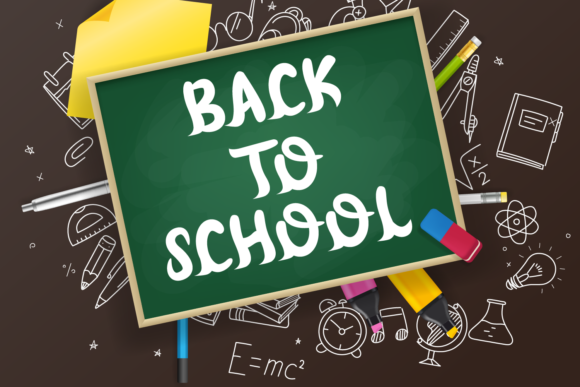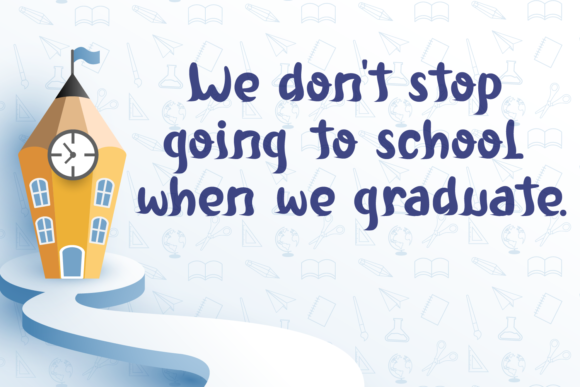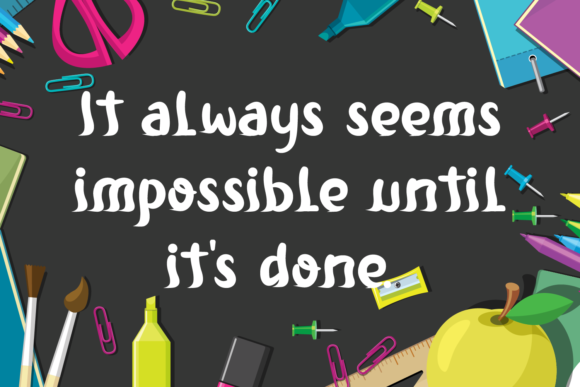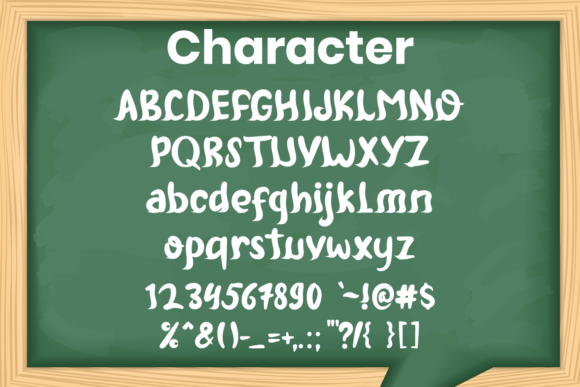
Unlocking the Fun in Design with Jack Homework Font
You know that moment when you’re working on a project and suddenly a spark of creativity hits you? Maybe it’s a quirky character design, a playful quote, or a whimsical title that brings a smile to your face. Whatever it is, it’s that instant when your design comes alive and you can’t wait to share it with the world.
For designers looking to add a touch of whimsy and fun to their creations, there’s a font that’s sure to become a trusted companion – the Jack Homework Font. This delightful display font is perfect for cartoon-related designs, children’s games, quotes, titles, brand names, book covers, posters, and more. Its playful and jolly vibe makes it an invaluable asset for designers seeking to inject a bit of magic into their work.
Jack Homework Font Key Features
- Unique Characteristics: Jack Homework Font features a distinctive, hand-drawn style with subtle imperfections, giving it a personal and approachable feel.
- Scalability: The font is designed to be highly scalable, allowing it to be used effectively in both large and small text sizes, from headings to body text.
Designer Review: Jack Homework Font
I recently had the chance to work with the Jack Homework Font, and I have to say it’s a decent addition to any designer’s toolkit. Here’s my honest review:
- Unique aesthetic: The font has a distinct, handwritten feel that can add a personal touch to any project.
- Readability: Despite its quirky appearance, the font is surprisingly easy to read, even at smaller sizes.
- Craftsmanship: The font’s irregularities and imperfections give it a sense of character that’s hard to replicate with more generic fonts.
- Limited range: The font’s style is quite narrow, which can make it feel restrictive in certain applications.
- Not ideal for body text: While the font works well for headlines and titles, it may not be the best choice for large blocks of body text.
- May require adjustments: Depending on the project, you may need to make some adjustments to the font’s size, spacing, or color to get the desired effect.
The Jack Homework Font is a solid choice for designers looking to add some personality to their projects. While it may have some limitations, its unique aesthetic and readability make it a valuable addition to any toolkit. With some careful planning and execution, this font can help you create visually striking and engaging designs.
For best results, use the font in conjunction with other educational-themed elements, such as lined paper or chalkboard backgrounds.
For a more authentic look, pair the font with distressed textures or vintage effects.
For a more polished look, use the font in conjunction with other educational-themed templates and design elements.
The Jack Homework Font is ideal for:
- Creating educational materials, such as worksheets, quizzes, and lesson plans.
- Designing educational websites, blogs, or social media channels.
- Adding a nostalgic or vintage touch to presentations, documents, or websites.